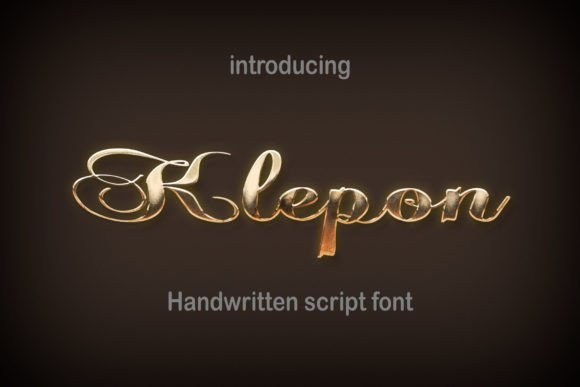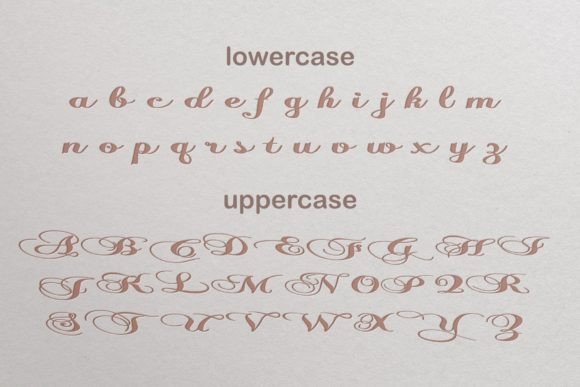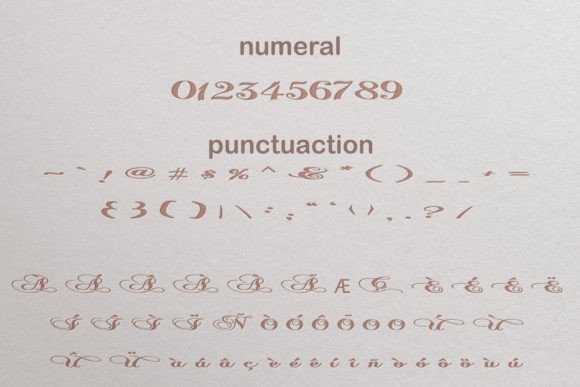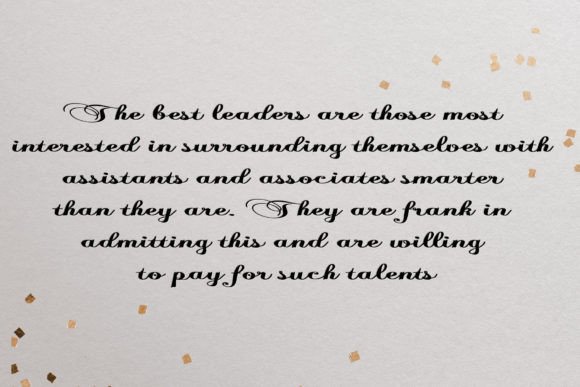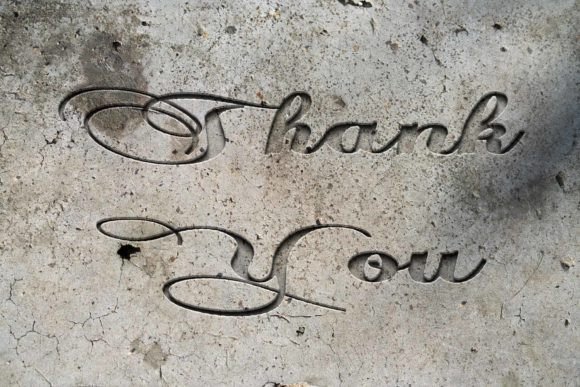
Klepon Font
About Klepon Font
Klepon font is a stylish modern handwritten script that brings an elegant, fresh touch to your creative projects. Its smooth curves and flowing lines provide a natural, handcrafted feel while maintaining modern readability. This font works well for a wide range of designs, making it a versatile choice for designers seeking both style and functionality.
Ideal for Various Creative Projects
Whether you’re creating logos, branding materials, invitations, or social media posts, Klepon font offers a perfect blend of sophistication and approachability. Its clean yet artistic strokes add personality to headlines and short texts, helping your projects stand out.
Distinctive and Easy to Read
Klepon’s balanced design ensures that it remains highly legible even at smaller sizes. This makes it suitable for digital and print projects alike, including business cards, posters, and web graphics.
Versatility in Design
Pair Klepon font with simple sans-serif fonts for body text to achieve a polished, cohesive look. It complements minimalist and contemporary styles but can also enhance more playful or elegant themes.
Additional Features
• Smooth, flowing handwritten style
• Excellent legibility for display and short text
• Perfect for branding, logos, invitations, and social media
• Versatile for both print and digital use
Why Choose Klepon Font?
Klepon font offers designers a modern handwritten script that is both stylish and practical. Its unique charm helps add warmth and personality to any design project, whether professional or personal.
In summary, Klepon font is a highly adaptable and attractive choice for designers who want a fresh handwritten look. It combines modern aesthetics with easy readability, making it a must-have for various creative needs.